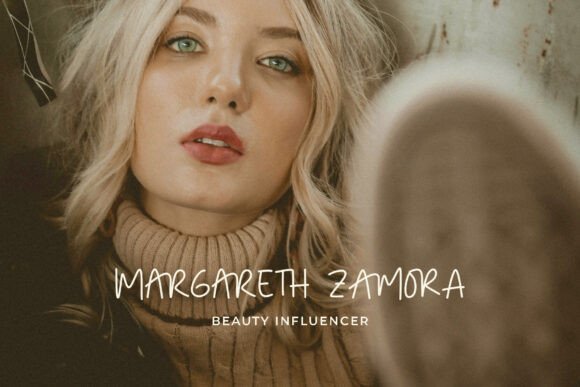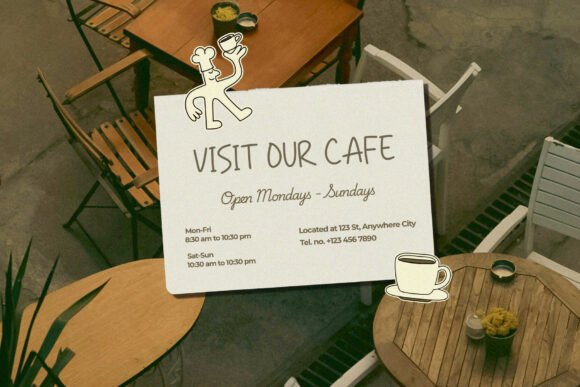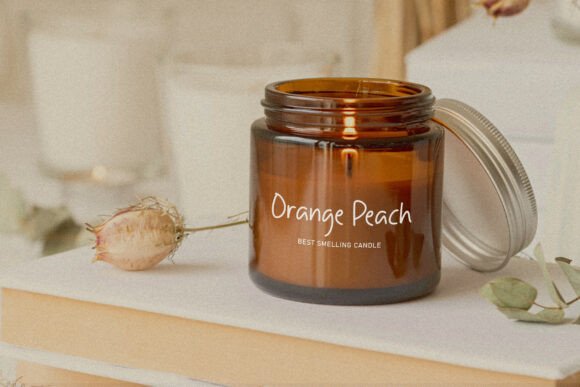
Introduction to Amygost Font
Amygost is a stylish handwritten font that captures a natural, flowing handwriting feel with elegant curves and a warm personality.
Designed to look authentic yet polished, Amygost is perfect for branding, wedding invitations, logos, quotes, packaging, and social media graphics Its smooth strokes and balanced rhythm add a personal, sophisticated touch to any design, making your message feel more expressive and human.
Amygost Font offers exceptional quality and versatility, making it a valuable addition to your design toolkit. Whether you’re creating for personal projects or commercial use, Amygost Font delivers professional results.